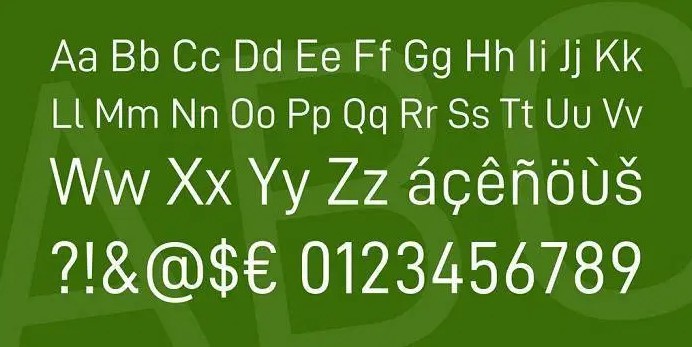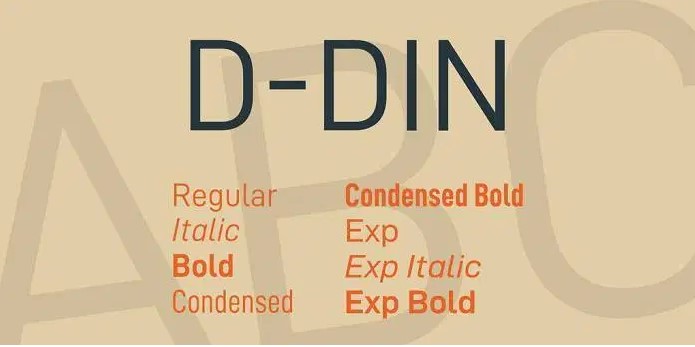
D DIN Font
D DIN Font falls under the category of the outline fonts. This typeface is also known as the Medium typeface. First of all, mixing splendour and readability making this font’s design is remarkable for books, magazines, and net pages. The font is relevant for massive symptoms and signs and symptoms and signs and symptoms, labels, titles, headlines.
Any photo layout on the net, in movement photos. It’s an extended manner a notable font for newspapers. volkswagen font is cool typography created as a contemporary and wide shape of characters that cowl simple Latin, essential Latin diacritics, and Cyrillic. D DIN Font Free Its ink traps make sure easy operation even on low-excellent papers.
As an end result, its proportions are trying to find to gain the region in top and width, consequently makes tremendous traditional corporation fonts. It’s miles one of the tremendous layout fonts for titles, headlines, and posters. Because of reality, its proportions have the purpose of gaining region in peak and width. Also referred to as customs font.
Further, an attractive and active model can use move returned as a separate font. The font like wide display font includes the ligatures, ordinals, and distinctive kinds of signs and symptoms, consequently protective the possibilities of typography.